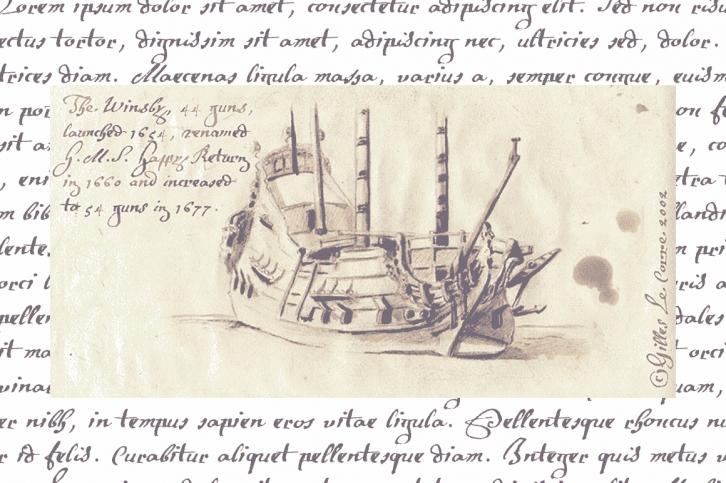
This rough font, was created inspired from a lot of various european documents dated from the end of 1600Õs. We were in search of a hand to accompany with ÒThe Treasure IslandÓ novel by R.L. Stevenson, and this seems to be the good one.
It is a ÒProÓ font containing Western (including Celtic) and Northern European, Icelandic, Baltic, Eastern, Central European and Turkish diacritics. We have also included a few old English specific abbreviations. The numerous alternates (four sorts of standard lowercases and two sets of capitals) and numerous ligatures allow to made the font looking like a real various hand. Using an OTF software, the features allow to vary each character without anything to do but to select contextual alternates and standard ligatures and/or stylistic alternates options.
The ÒRuÓ version is a supplementary choice, offering Russian Cyrillic.